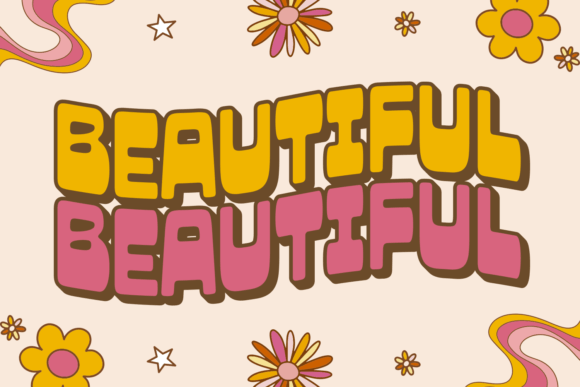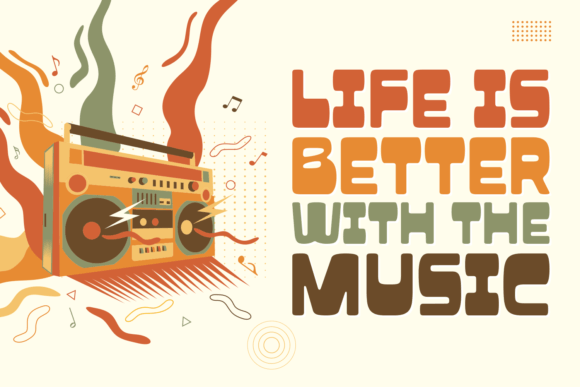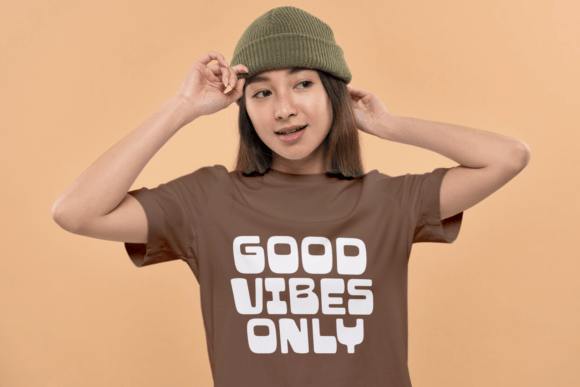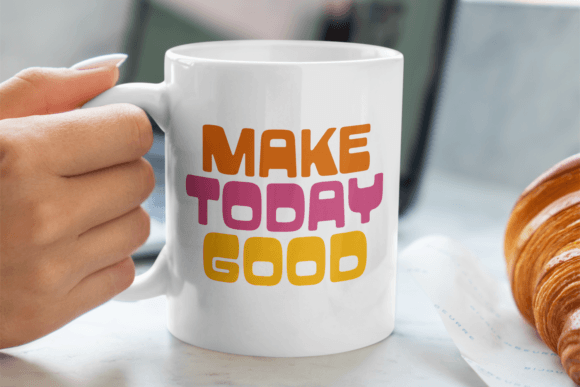
Introduction to Shine Again Font
Shine Again is a playful retro-style display font.
Create a bold and unique aesthetic in your typography designs with this daring font that has the potential to elevate any creation It is perfect for posters, book covers, advertisements, banners, signage, headlines, apparel, and more.
Key Features of Shine Again Font
Why Choose Shine Again Font?